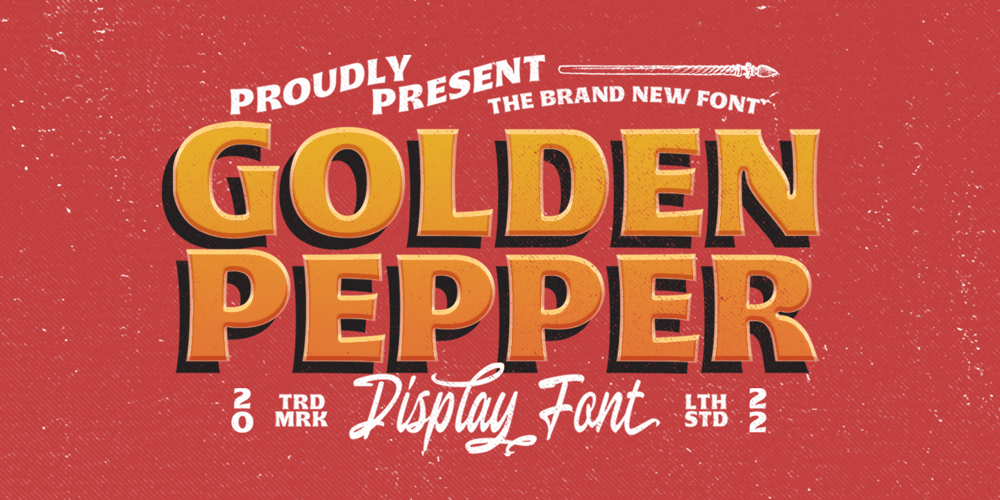
Golden Pepper Font Family was designed by Hendry Juanda and published by Letterhend. Golden Pepper contains 1 styles and family package options. Golden Pepper is a vintage display typeface with the touch of nostalgic feel. The bold looks make this font standout to be used as a title or a logo. This font perfectly made to be applied especially in logo, and the other various formal forms such as invitations, labels, magazines, books, greeting / wedding cards, packaging, fashion, make up, stationery, novels, labels or any type of advertising purpose.Features :Numbers and punctuationStylistic alternatesmultilingualPUA encodedWe highly recommend using a program that supports OpenType features and Glyphs panels like many of Adobe apps and Corel Draw, so you can see and access all Glyph variations.Email us to letterhend@gmail.com if you need something! Happy Designing!